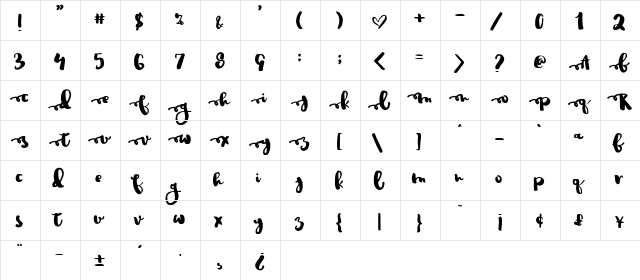
JustinRoad Regular
| Foundry | Filia MyCandyThemes |
| Designer | Filia |
Design Context for JustinRoad Typeface
JustinRoad is a composed and adaptable typeface that performs quietly and consistently across a wide range of design contexts.